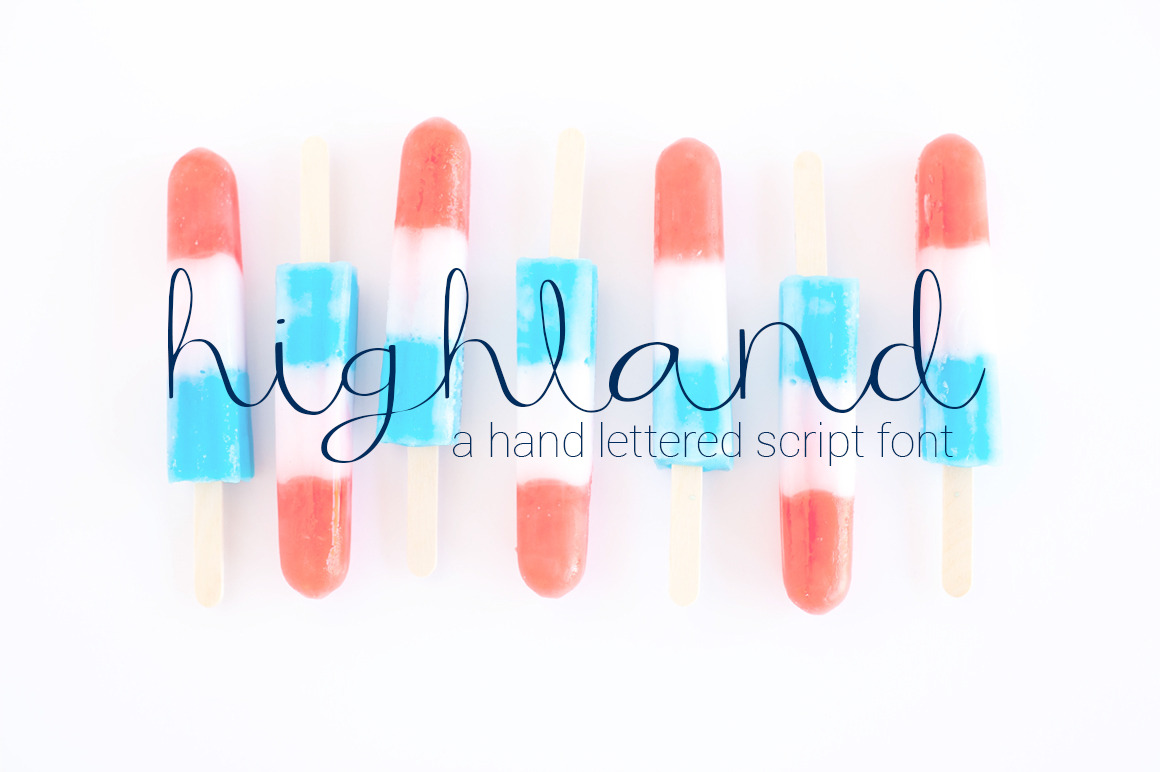
HIGHLAND Hand Lettered Script Font
Highland is a thin and feminine hand scripted font with an offbeat look to bring some personality to your next project. This smooth font has the perfect curves and swirls to give a fun hand written feel.